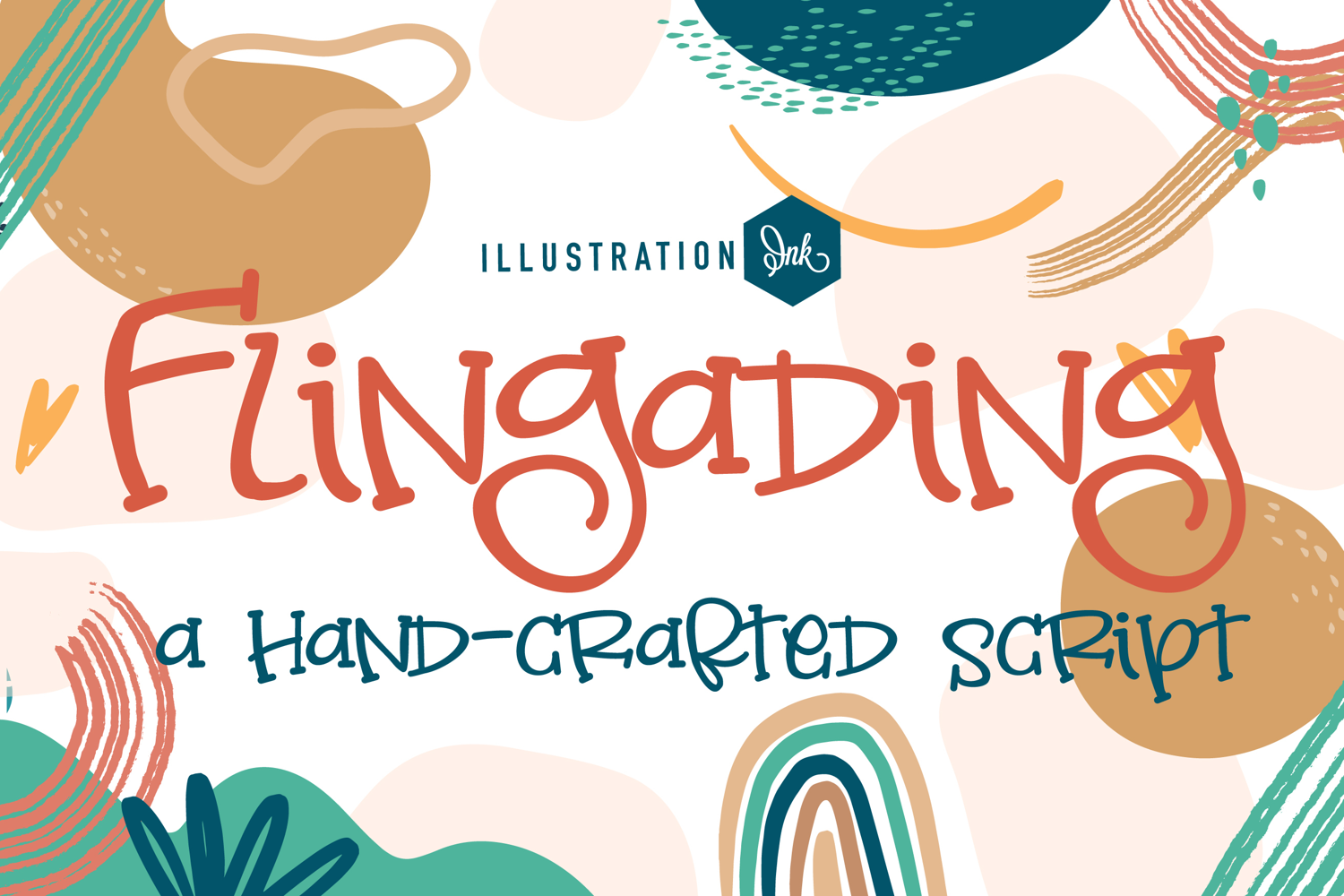
ZP Flingading
This hand-crafted font is a hand-written print with slab serifs throughout and a very bouncy baseline.
• The letters are not perfectly uniform in size or shape.
• There may be slight variations in the spacing between letters and words.
• The font may have a "wiggly" or "squiggly" appearance.
• The font may be difficult to read at small sizes.